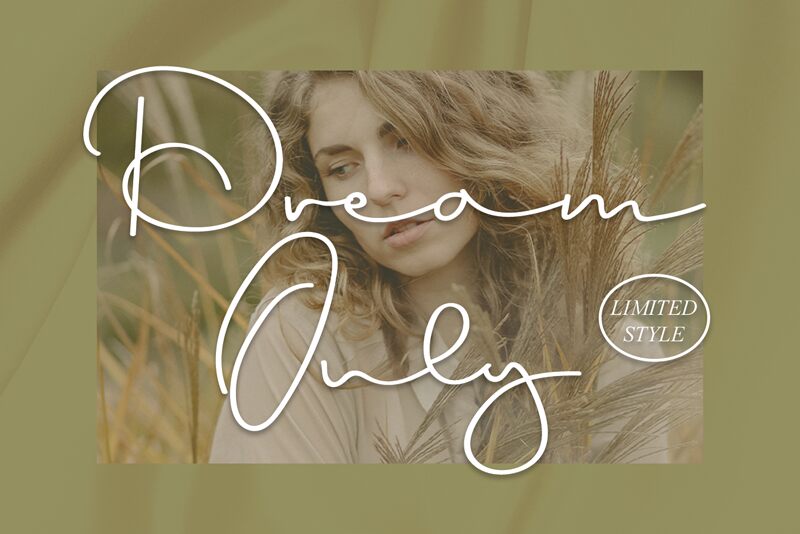
Dream Only
Dream Only is a lovely and delicate script font designed by Erik Studio that exudes elegance and class. This font was particularly crafted for those who need a beautiful and refreshing look to their designs.